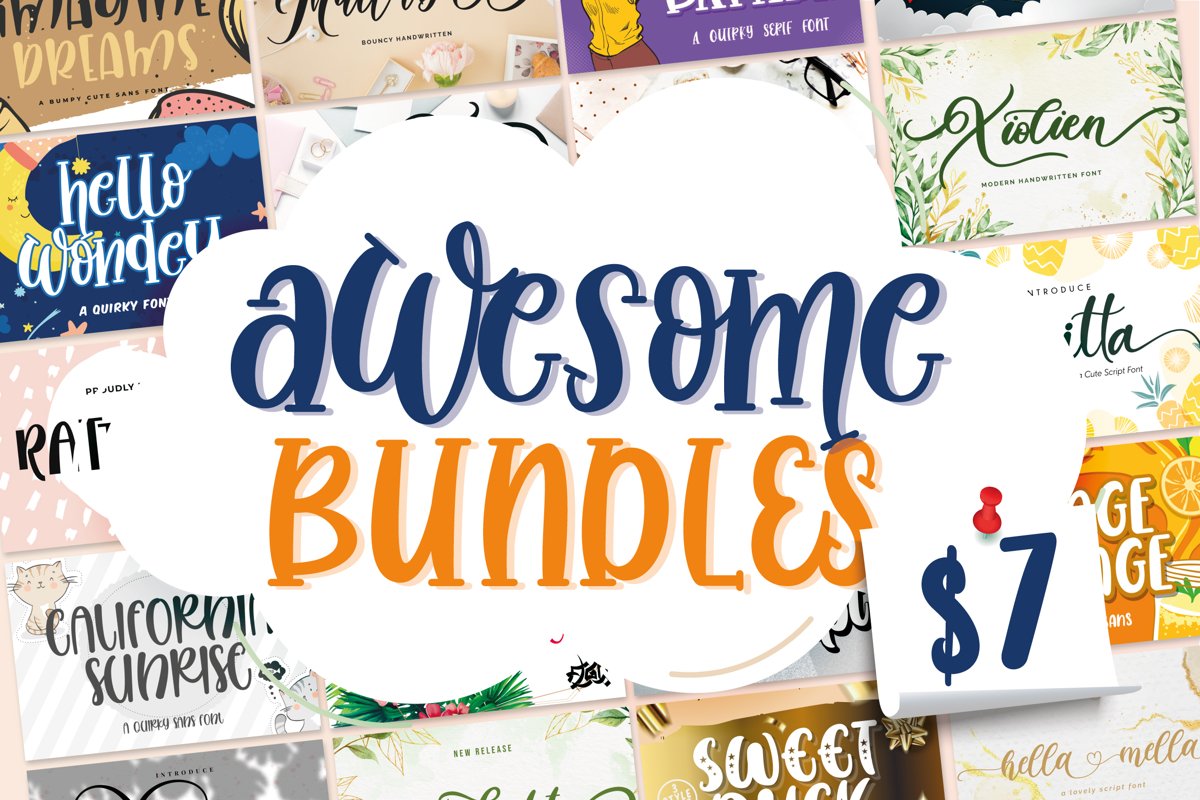
Awesome Bundles Vol 01 - 20 Fonts
Summer Tropical
Tails Mermaid
Alarate Script
Havana
Letterhear
Sweet Duck Stars
HellaMella
Sweet Duck
MidnightStory
Theyriad Script
Daylight
baritta
California Sunrise
Sweet Duck Outline
Mallaba
The Spooky Time
Imagine Dreams
Xiolien
Range Orange
Miss Barada
Rattaullie
DaylightRegular
Hello Wondey
Today is a good day to present you our new awesome and cute font bundle. This font is handmade and Very suitable for those of you who like handcrafted, you can use it for various design purposes. This font is suitable for any design like branding, quotes and etc.This bundle specially contains 20 typeface The value of this unique font bundle is $271, but now you can have it for only $5, WOW.